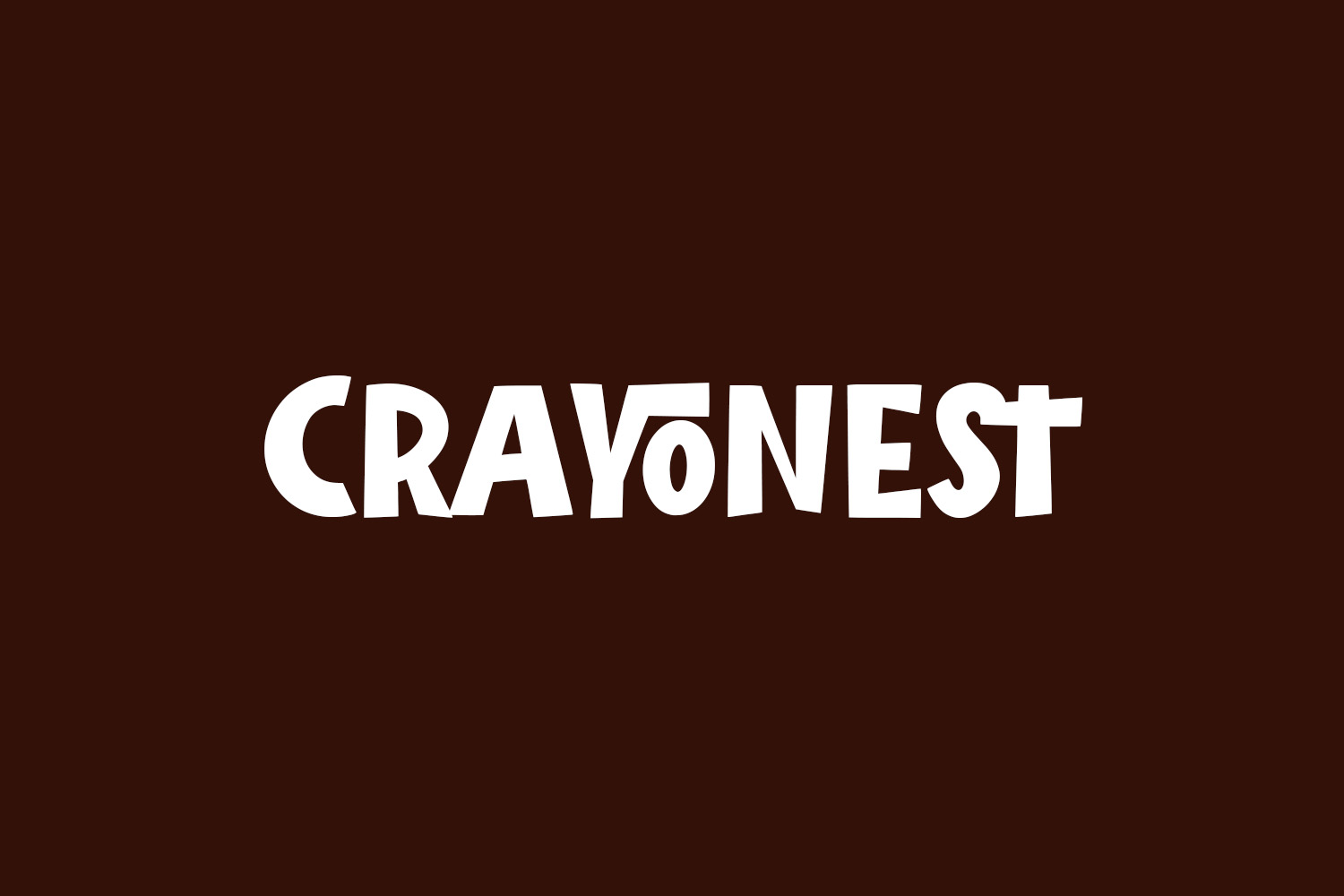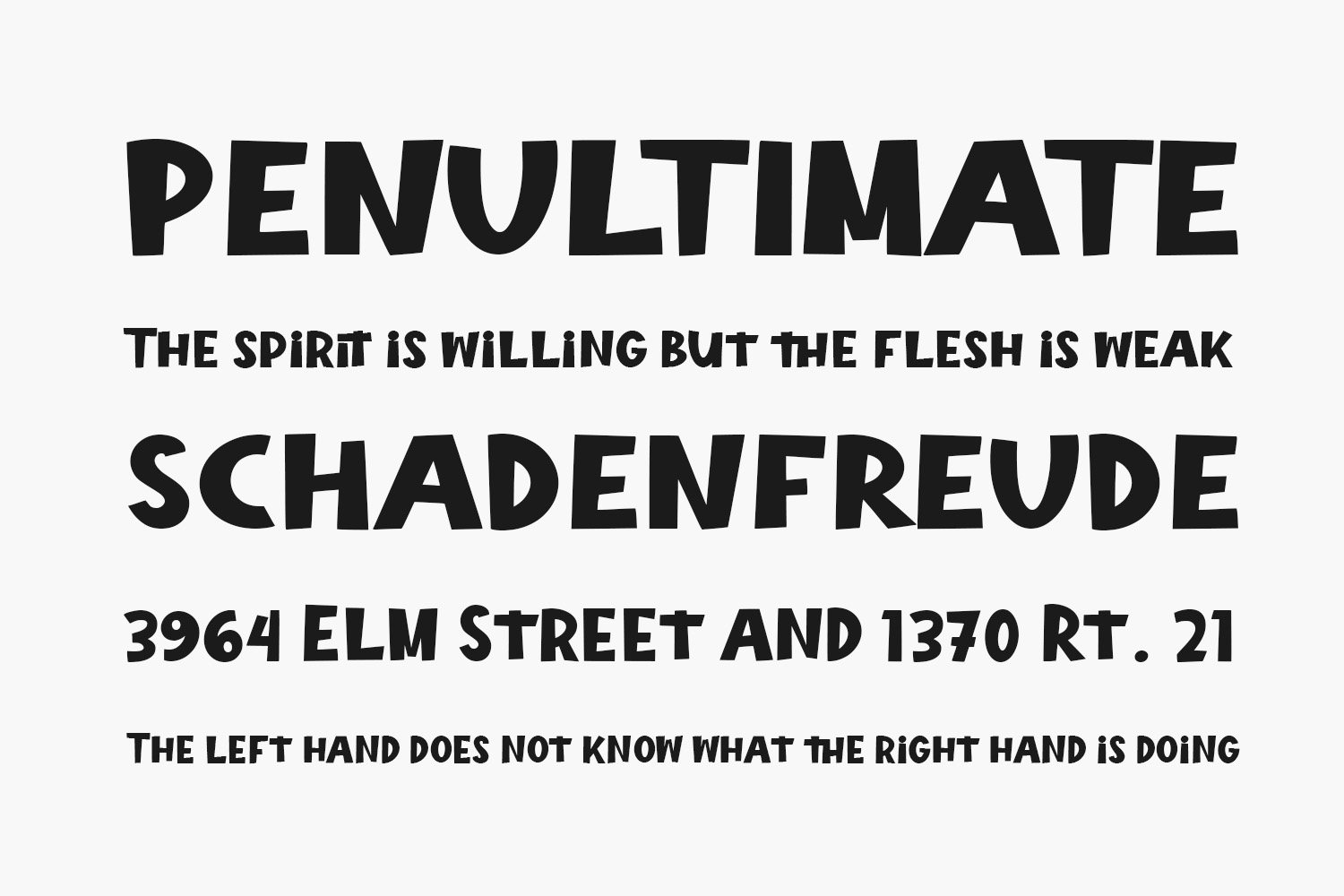
Crayonest Free Font is a cute and colorful display font. It embodies playfulness and authenticity and is the perfect choice for any children’s activity or school project. Crayonest Free Font was designed by Maulana Creative and is free for personal use only. Please purchase the full version for commercial use.